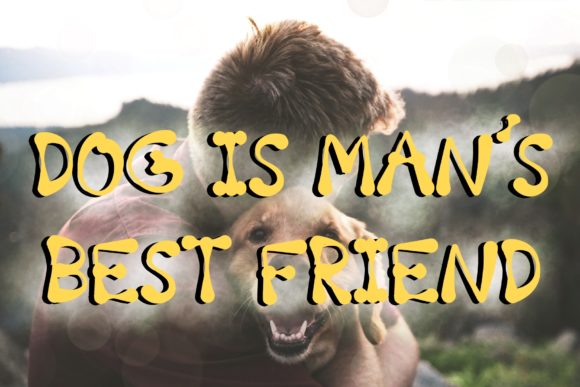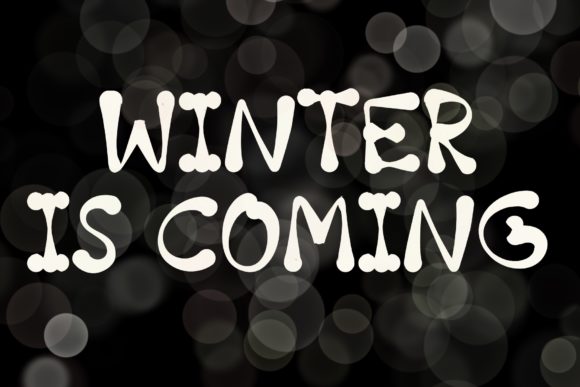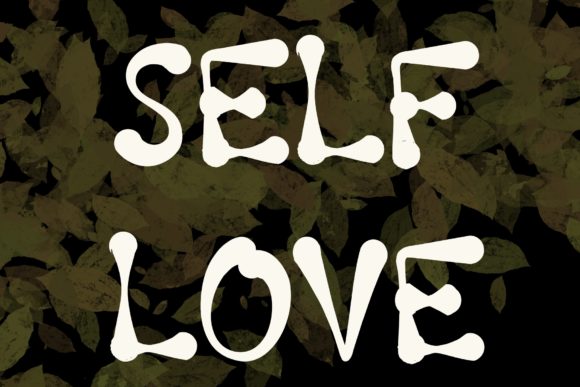
Introduction to Nektars Font
| 👤 Author | Ansart |
Enter Nektars Font, a bold and unique display font that is sure to add a touch of magic to your designs. With its fun and friendly vibe, this font is the perfect companion for any creative project. Whether you’re working on a logo, social media graphics, or a promotional poster, Nektars Font is the perfect addition to your design arsenal.
Key Features of Nektars Font
- High-quality design resource with a unique, modern aesthetic suitable for creative projects.
- Includes a range of characters and glyphs, making it a versatile choice for a variety of creative applications.
- Perfect for designers, artists, and creatives working on projects that require a clean, modern, and sophisticated look.
- Supports a wide range of languages, making it a great choice for international design projects.
Honest Review: Nektars Font
I recently stumbled upon the Nektars Font and I must say it’s been a great addition to my design resources. The high-quality font is perfect for creative projects that require a unique touch.
- ✨ High-quality design that stands out from the crowd
However, I do have a few concerns:
⚠️ The font’s transparent background can sometimes be a challenge when working with complex designs. I wish there was an option to adjust the background opacity.
⚠️ The font family is limited, which can be a constraint for designers who need a wide range of font styles for their projects.
Overall, I’m impressed with the Nektars Font’s design and functionality. While it has some limitations, it’s definitely a valuable resource for designers who want to add a touch of elegance to their creative projects. I would recommend it for free download and incorporation into your design workflow.
Nektars Font
Design Resource for Creative Projects
Getting the Most Out of Nektars Font
To get the most out of Nektars Font, use it consistently throughout your design. Experiment with different font sizes, colors, and styles to create a unique visual identity.
Nektars Font is perfect for:
- Branding materials
- Marketing materials